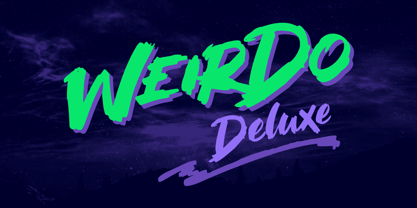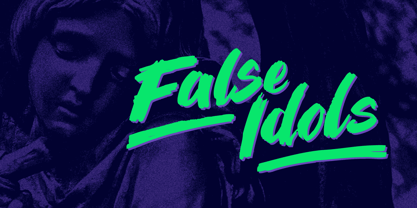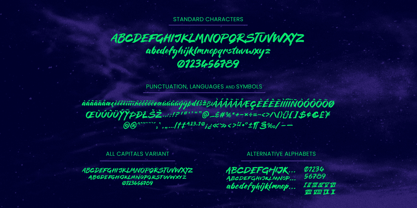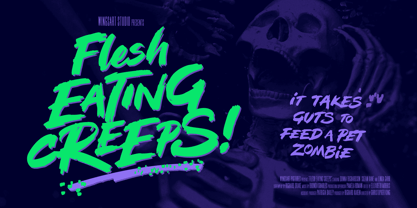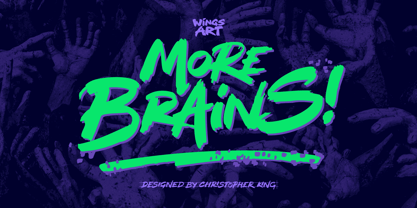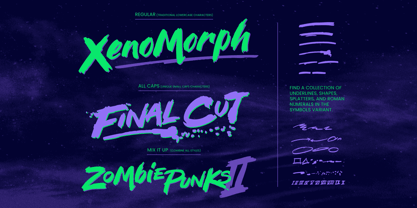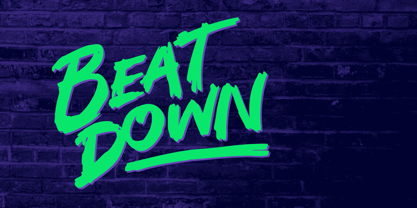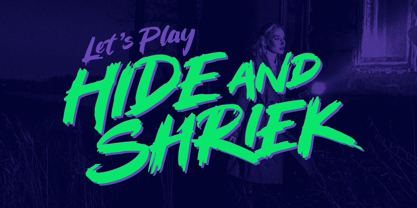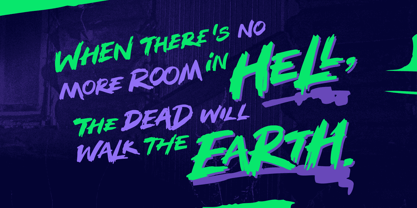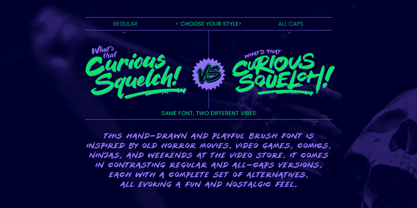
More Brains
The More Brains Font Family was designed by Christopher King and published by Wing's Art Studio. More Brains contains 5 styles and family package options. More about this family
More Brains is a playful, hand-drawn horror font inspired by old horror movies, video games, comics, ninjas, and weekends at the video store. It’s supplied in contrasting regular and all-caps versions, each with a complete set of alternatives, evoking a fun and nostalgic feel.
Similar to my popular font Zombie Punks, More Brains was designed to have a more consistent and formalised look with a slight italic lean. It also introduces regular lowercase characters, adding a light-hearted spin on the horror genre.
More Brains features uppercase and lowercase characters, numerals, multilingual support, and an all-caps version (unique uppercase and lowercase) plus a complete set of alternatives, roman numerals, underlines, paint splatters, and symbols. Each style complements each other and works great when mixed in title design. See for yourself in my visuals!